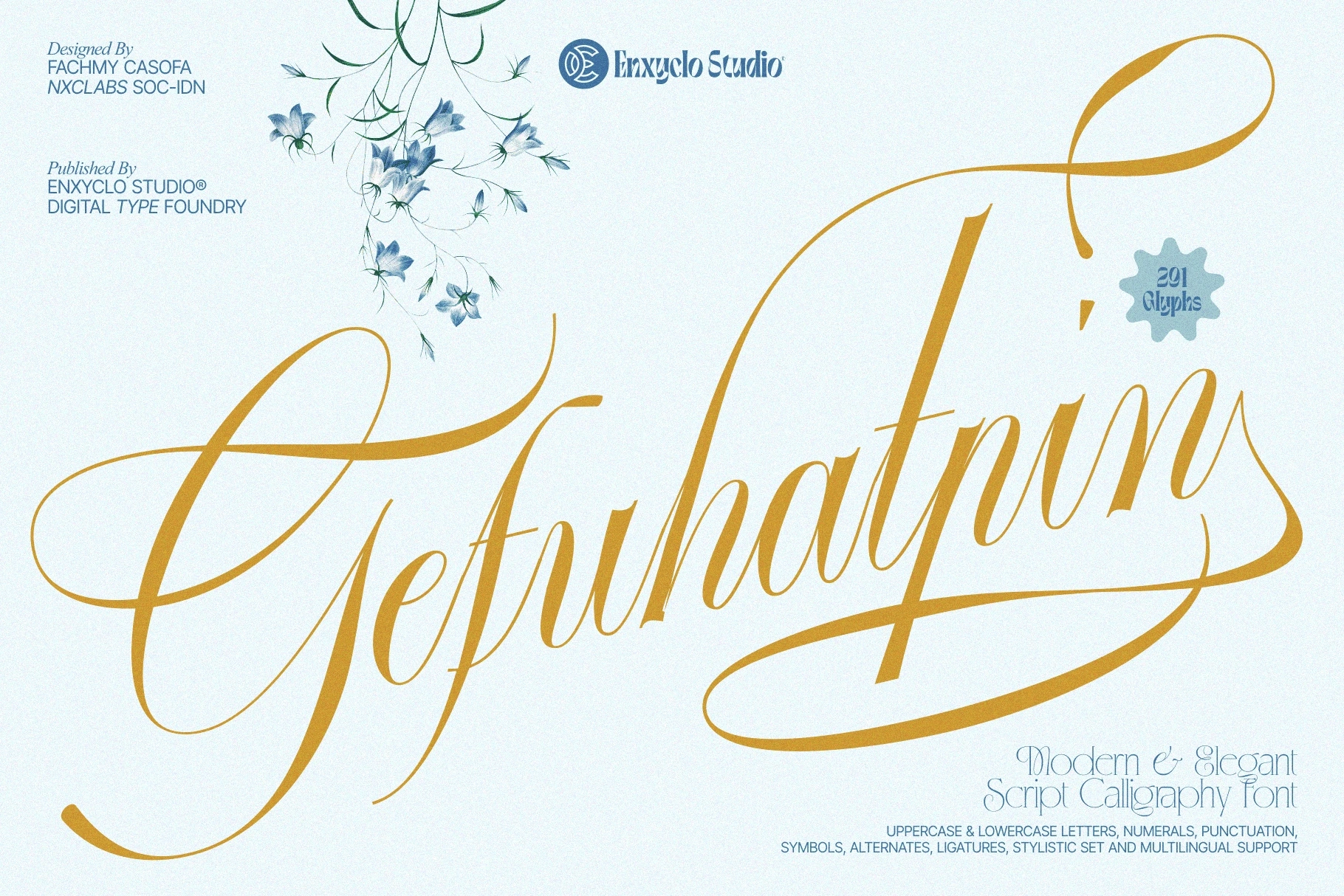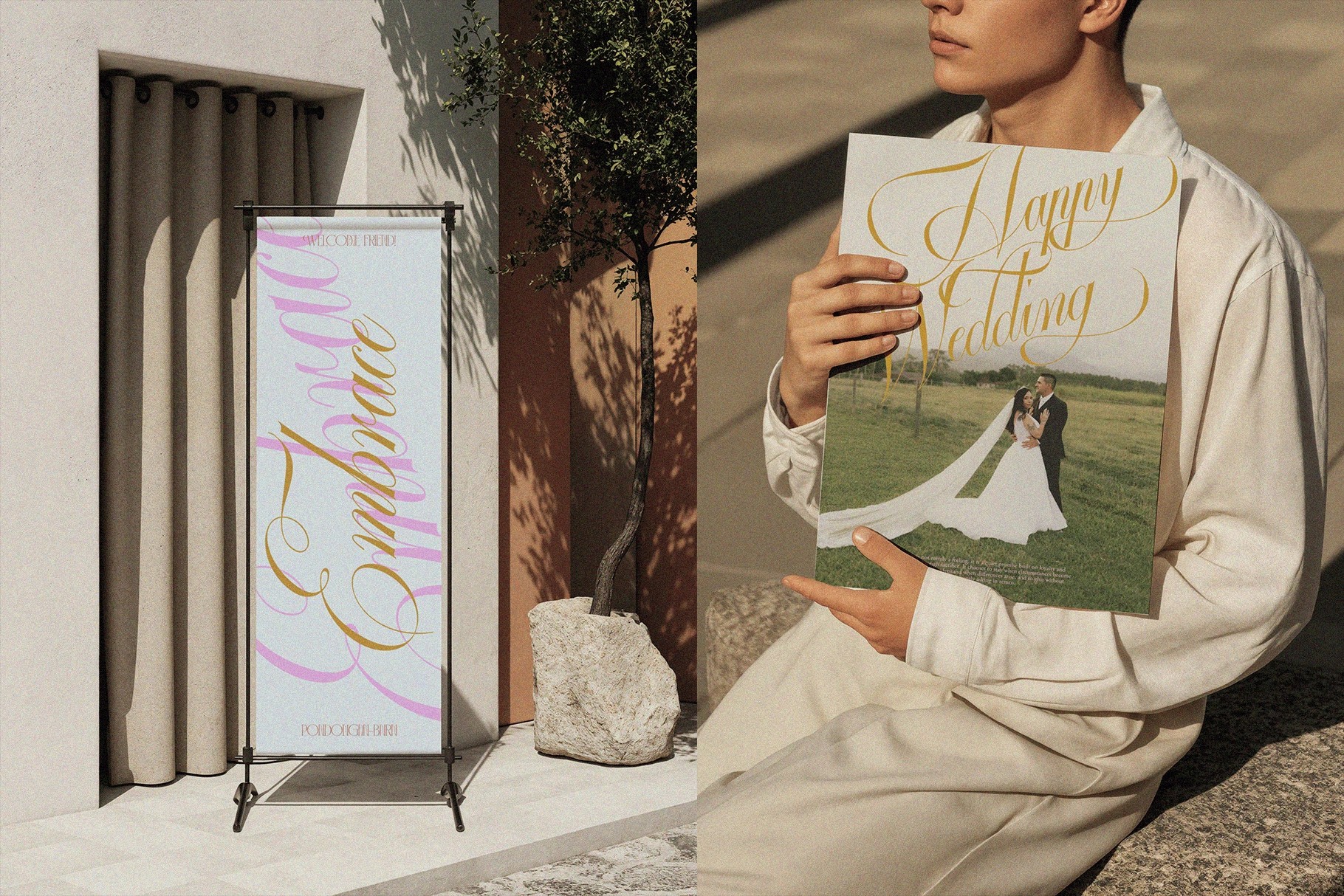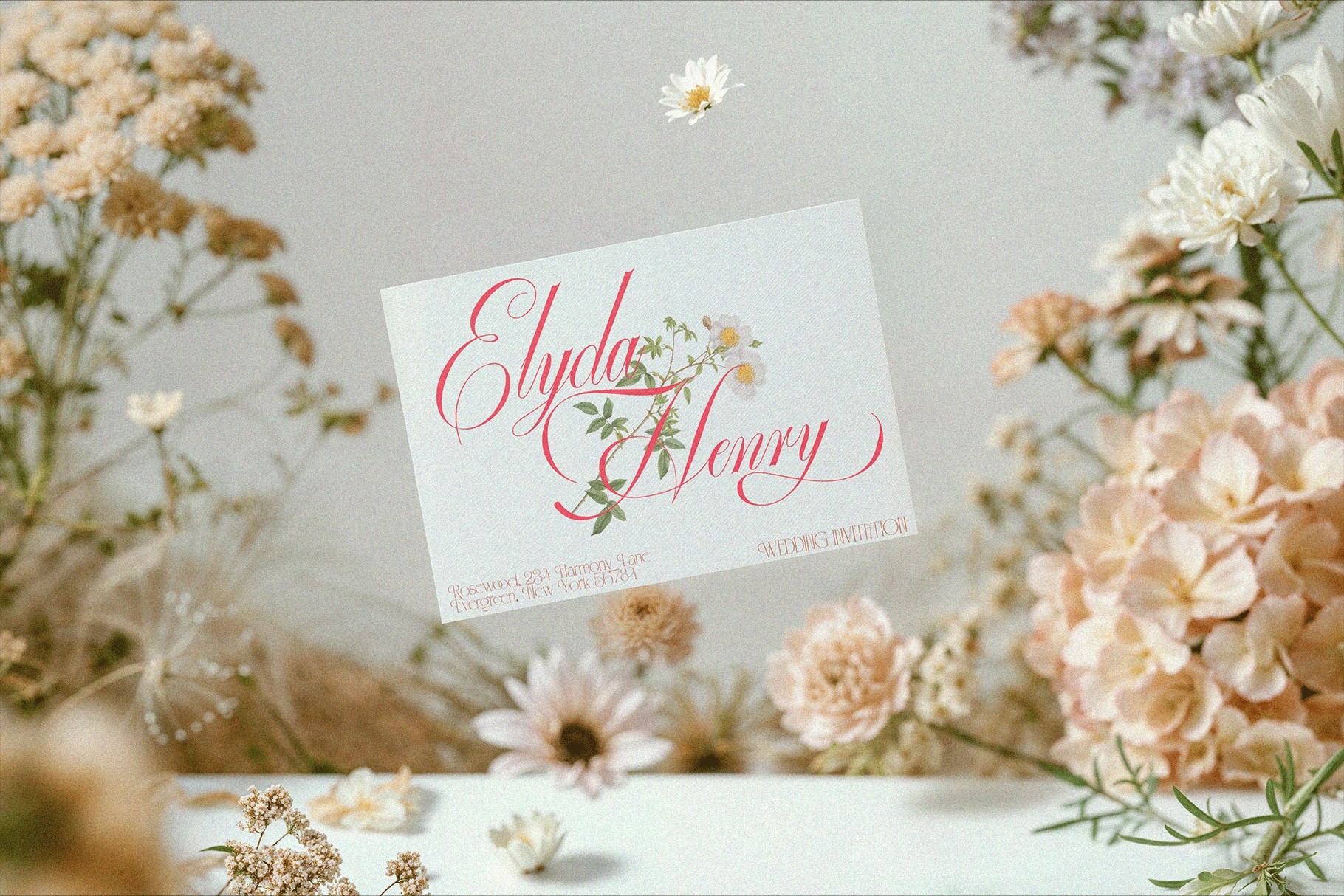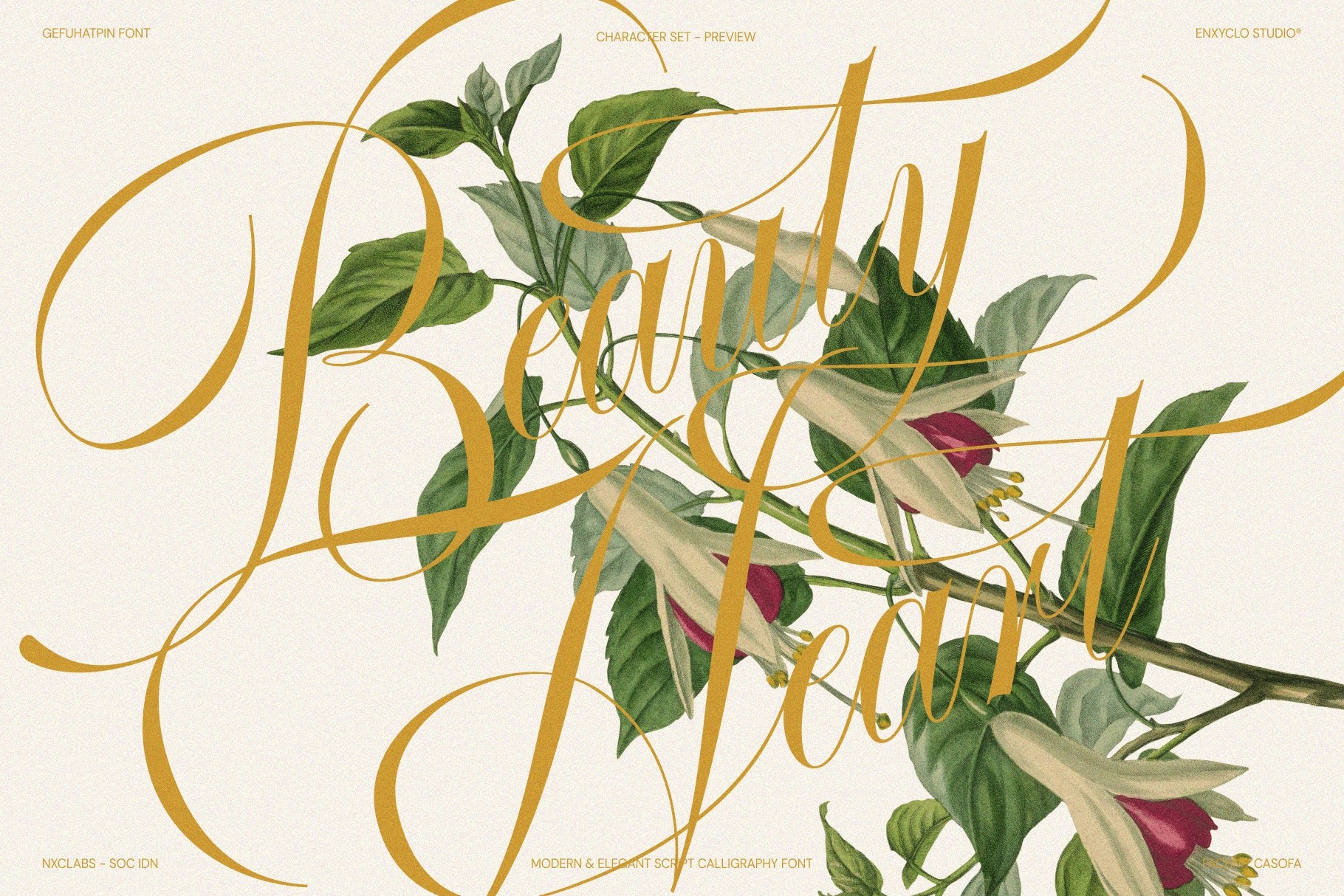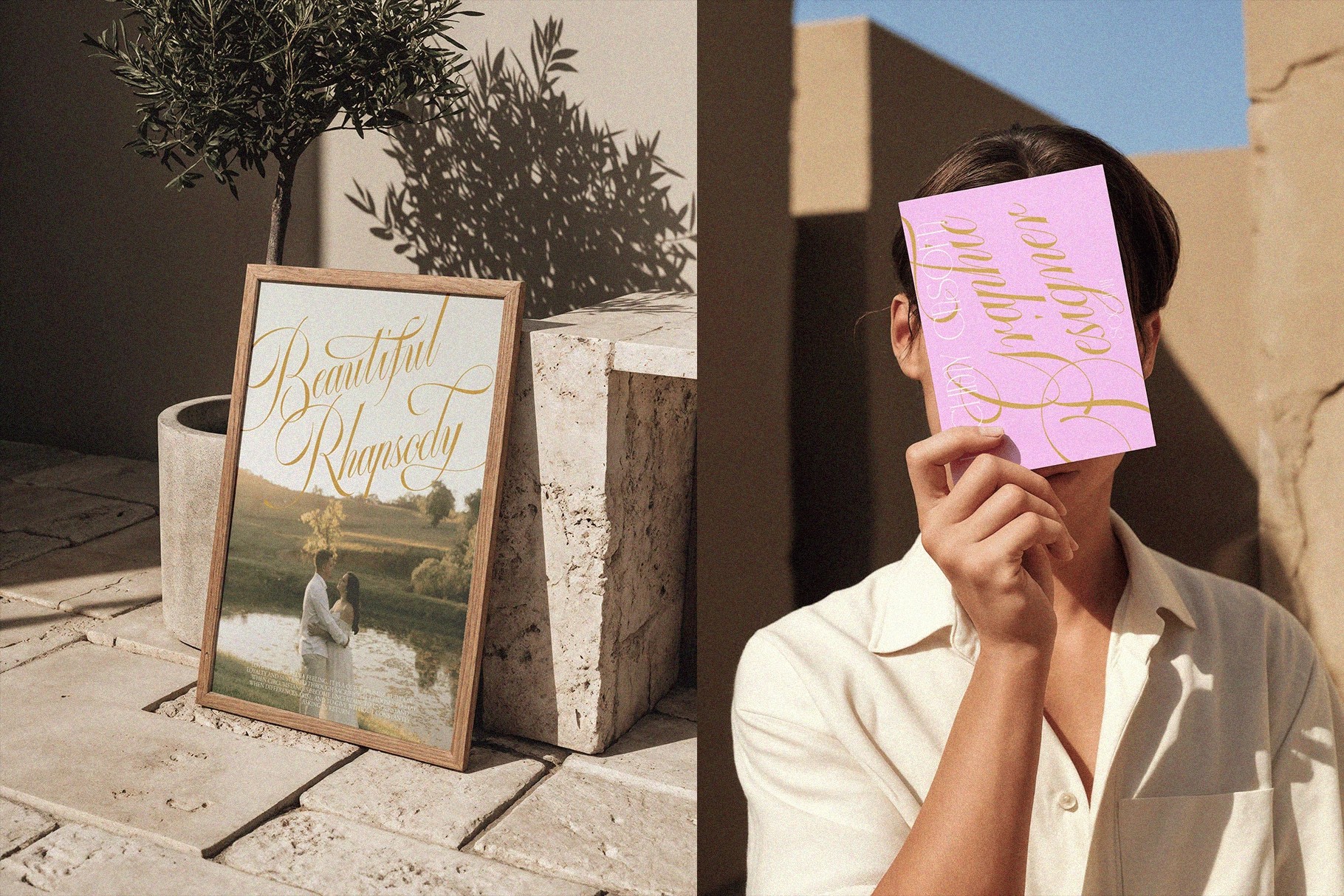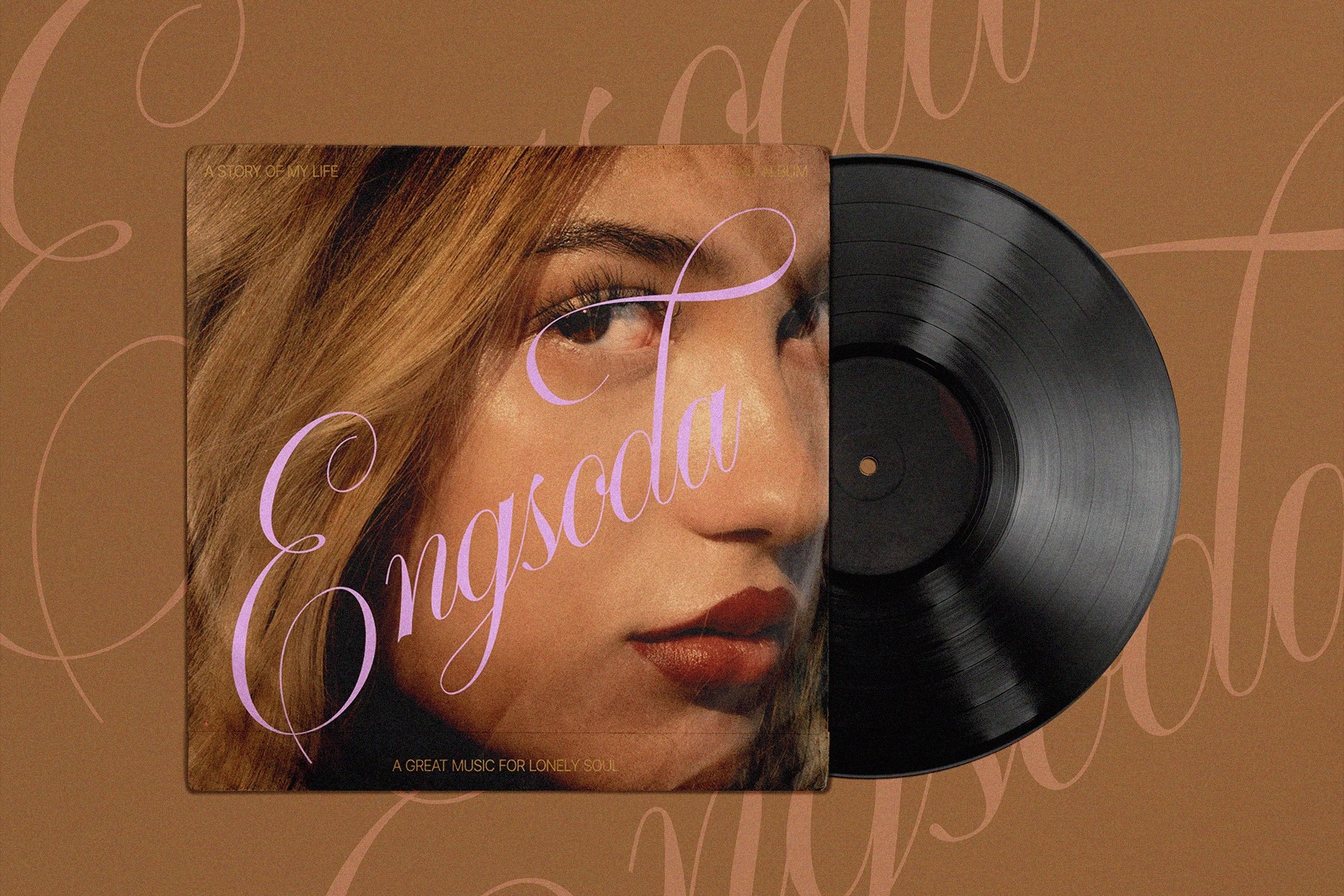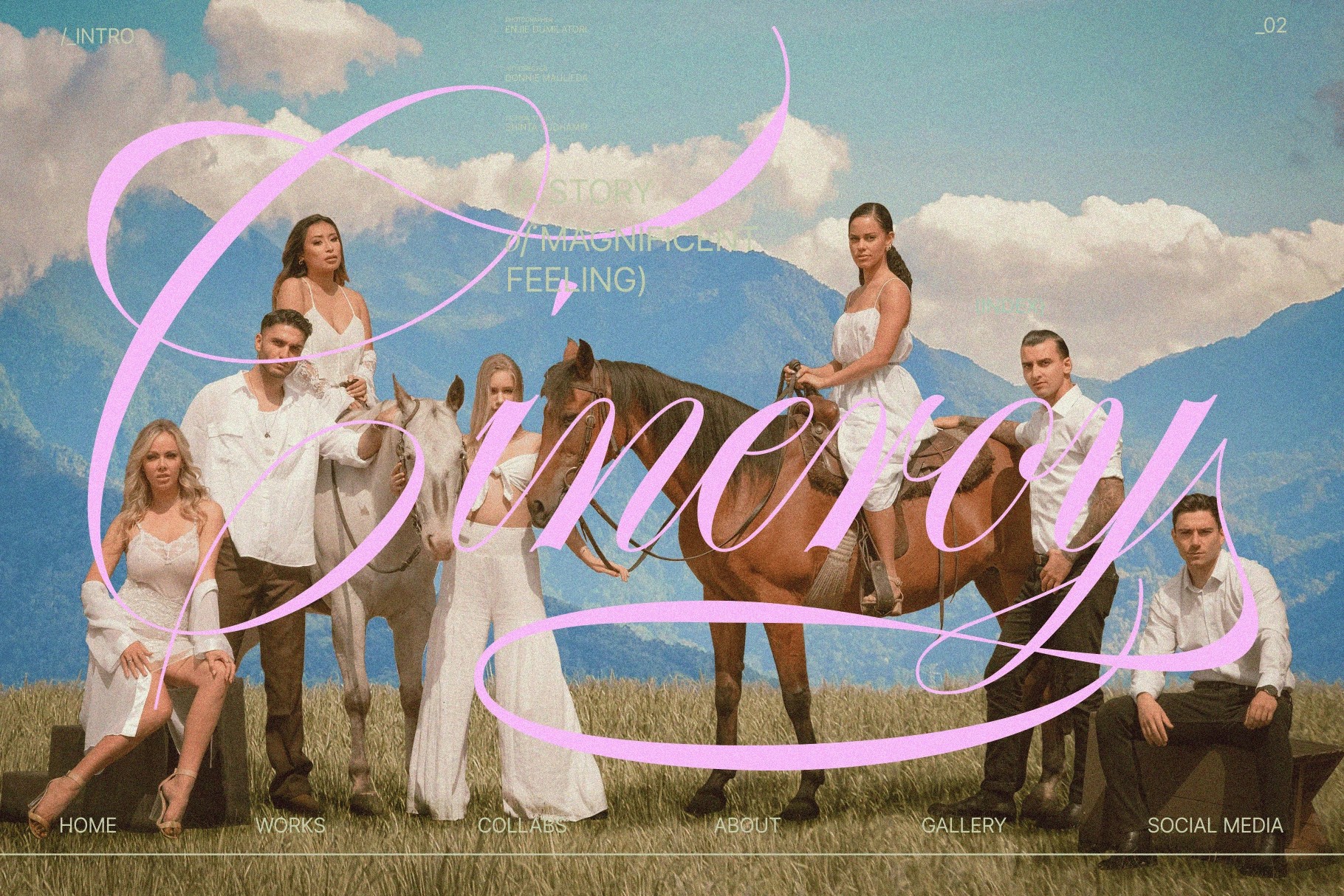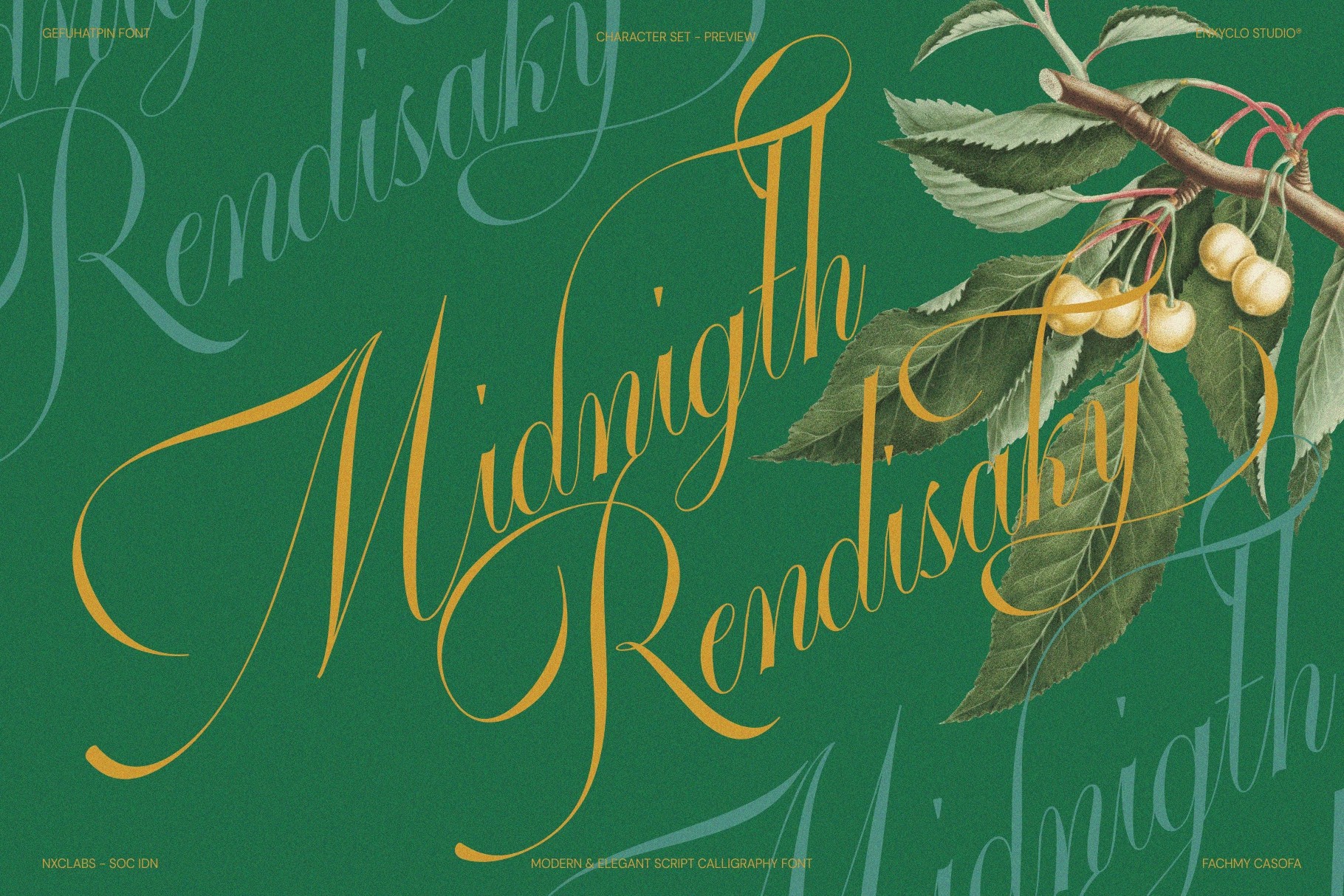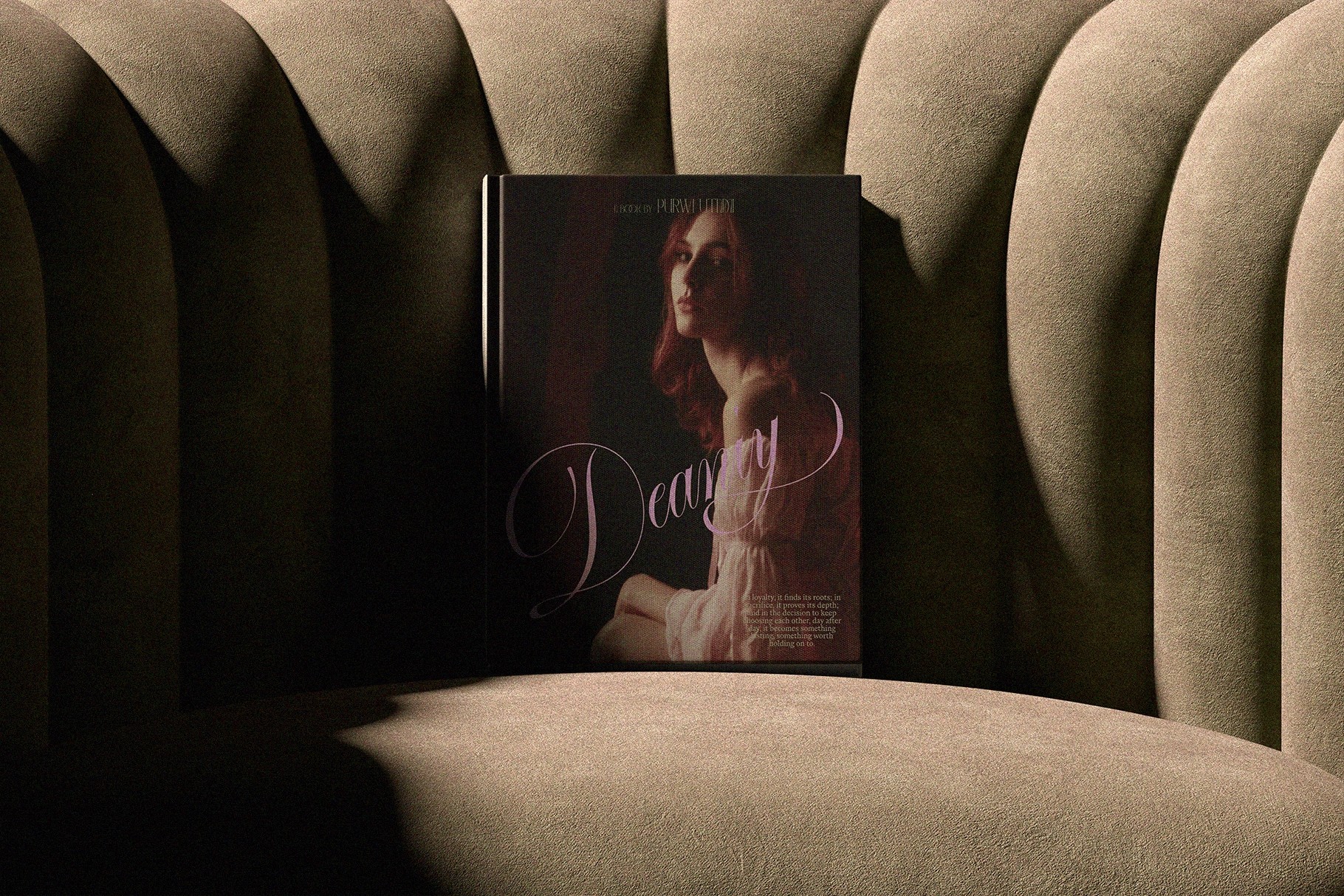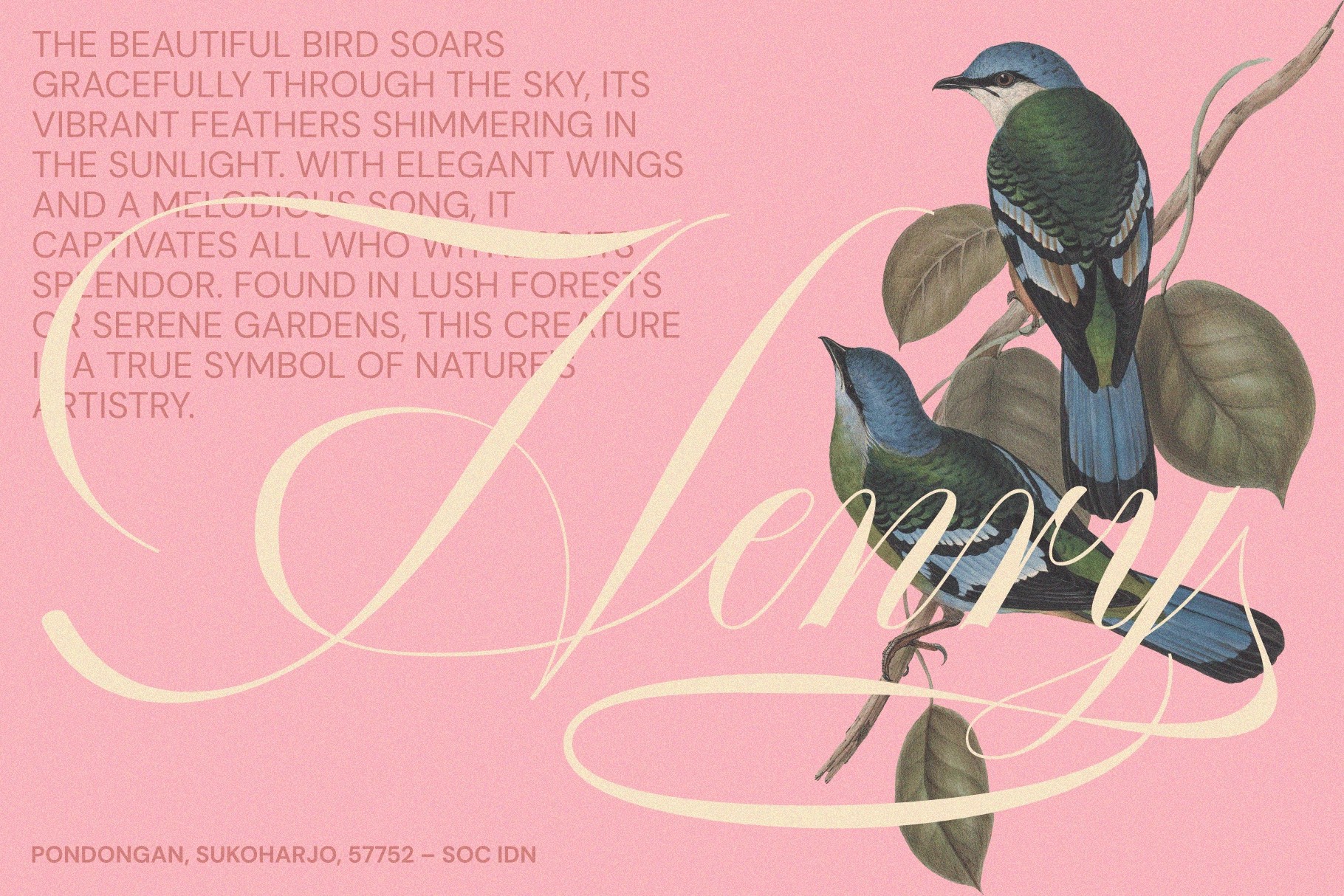
GEFUHATPIN — Elegant Calligraphy Font
Gefuhatpin
A calligraphy font with long sweeping strokes, fine hairlines, and ornate swashes for polished visual drama. Its elegant letterforms carry a refined, romantic character, with uppercase shapes made for expressive titles and lowercase forms that flow with decorative rhythm.
Gefuhatpin works well for luxury logos, boutique branding, wedding invitations, beauty packaging, fashion campaigns, editorial covers, signature marks, product labels, event stationery, social media graphics, and advertising layouts. Alternates, stylistic sets, ligatures, and swashes give designers room to create graceful compositions without making the work look like it tried too hard at brunch.
- Uppercase & Lowercase Letters
- Numerals, Punctuation Marks, Currencies & Symbols
- Alternates, Stylistic Sets & Ligatures